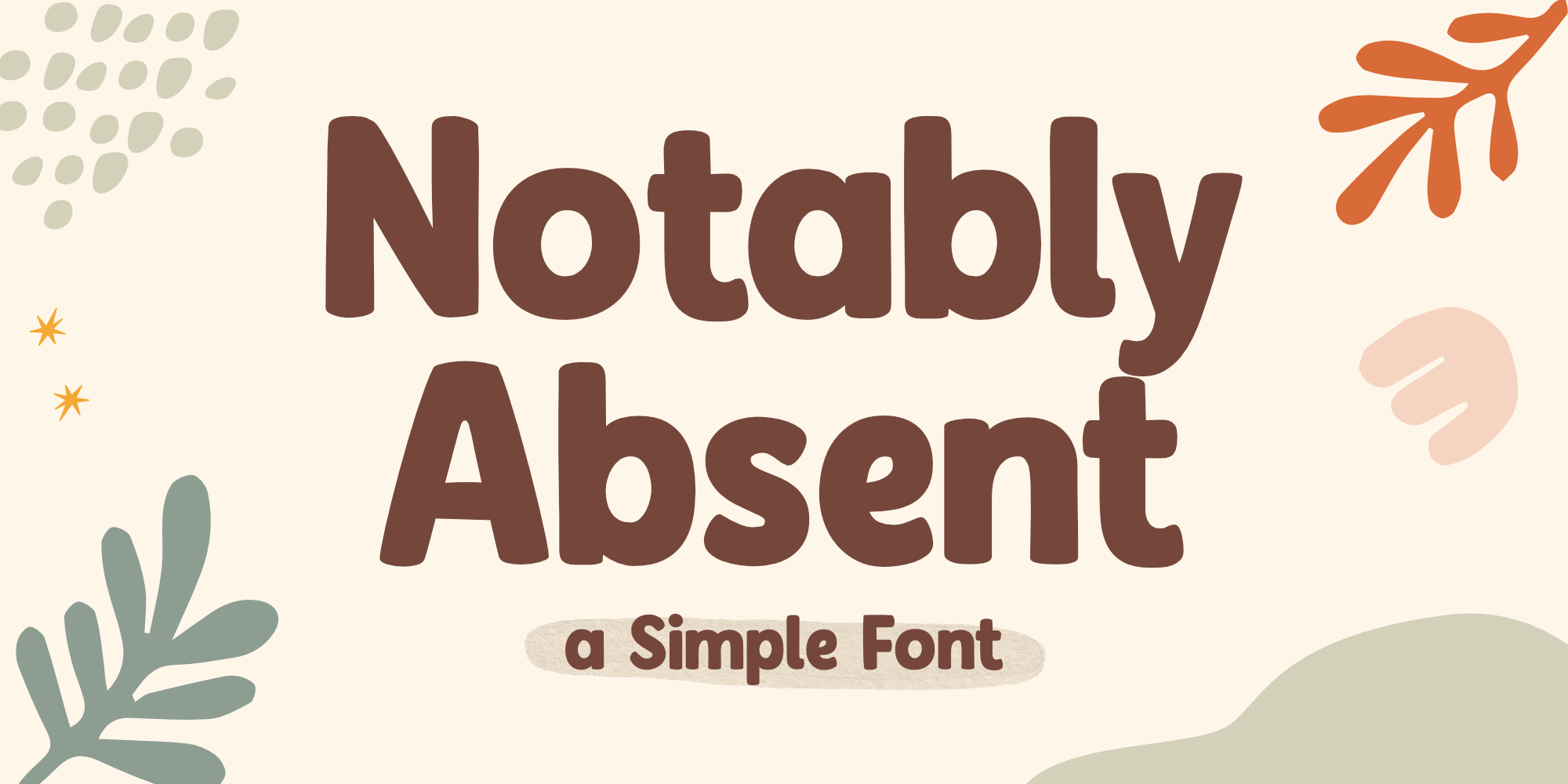
Notably Absent Font is perfect for minimalist design studios, conceptual art exhibitions, philosophical publication materials, mystery novel covers, artistic gallery signage, contemporary poetry books, avant-garde magazine layouts, introspective brand identity, and thoughtful social media campaigns. This contemplative typeface brings intellectual depth and conceptual sophistication to both digital and print design applications.
Notably Absent Font is exciting because it embodies the profound power of negative space and conceptual minimalism, making it an exceptional choice for designers who want to convey depth through simplicity with authentic intellectual appeal. Its deliberately restrained letterforms and thoughtful character provide the perfect combination of conceptual sophistication and functional clarity, ensuring your projects communicate intellectual depth, artistic restraint, and philosophical excellence that resonates with audiences seeking genuine contemplative experiences and meaningful design.
The Notably Absent Font family includes contemplative weight variations and conceptual elements, featuring light, regular, and medium weights with complementary minimal styles, thoughtful ligatures, and philosophically-inspired spacing variations. Each style maintains consistent intellectual aesthetics while offering flexibility for different conceptual applications, allowing designers to create meaningful visual systems that reflect philosophical thinking and artistic contemplation.
Whether you're designing for intellectual brands, artistic institutions, or conceptual projects, Notably Absent Font Free Download delivers authentic contemplative appeal and intellectual sophistication that connects with audiences seeking genuine depth and meaningful experiences. This premium typeface offers designers the philosophical elegance and conceptual clarity needed to create designs that communicate intellectual beauty, artistic restraint, and thoughtful excellence effectively. The font's contemplative character makes it perfect for intellectual branding, artistic campaigns, and philosophical applications where authentic depth is essential. Download Notably Absent Font today and deepen your creative projects with genuine intellectual sophistication and contemplative typography excellence that defines meaningful design standards.